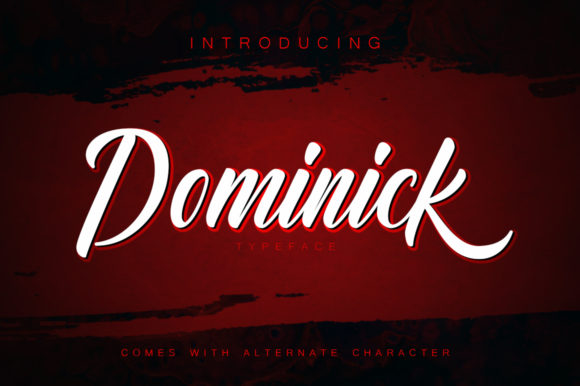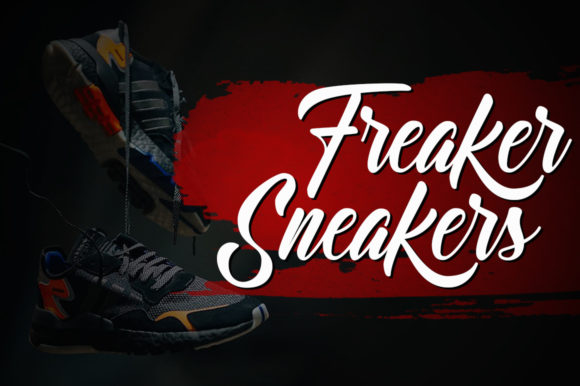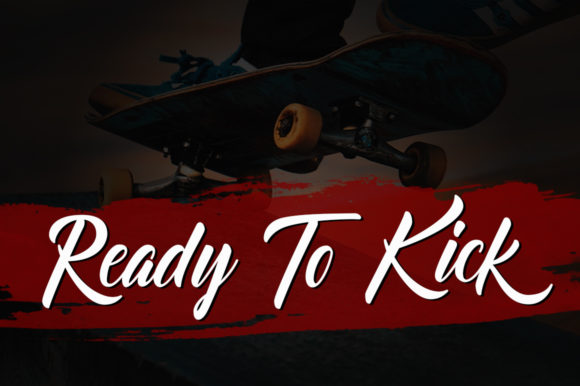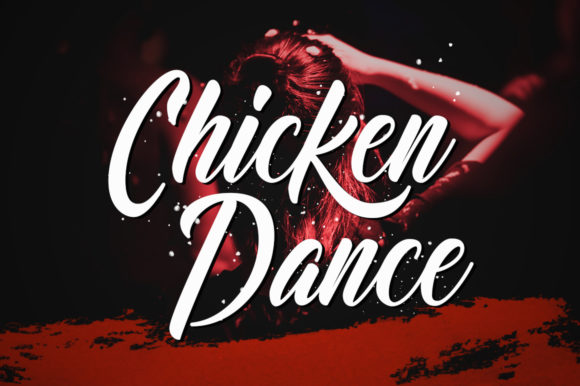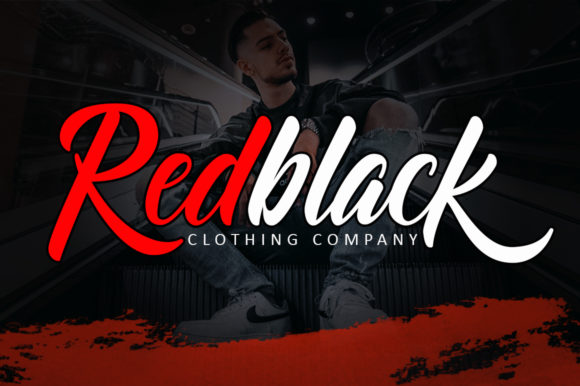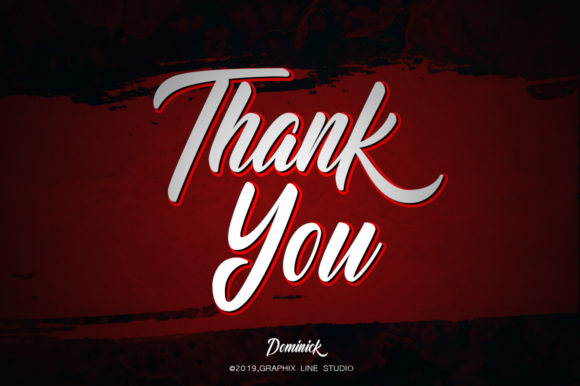
HomeScript FontsDominick Font Script Fonts Dominick Font FacebookXPinterestWhatsApp Dominick Font Poster 2 Dominick Font Poster 3 Dominick Font Poster 4 Dominick Font Poster 5 Dominick Font Poster 6 About Dominick Font Dominick is a bold and modern handwritten font that will allow you to create beautiful designs in an instant! DOWNLOAD ON CREATIVE FABRICAThis font is sold and delivered by Creative Fabrica. Font Canyon may earn a commission if you buy through this link. People also explored Hexanova Font Dictionary in Library Font Banitta Font Trio & Extras Getterny Mamthi Font Heather Small Caps Mugets Font Mangorush Font 1925 My Toy Print Deluxe Pro Set Font Hello Lovely 334 0 TagsDominick Font Previous articleCoco Banana FontNext articleWilliam Font LEAVE A REPLY Cancel reply Comment: Please enter your comment! Name:* Please enter your name here Email:* You have entered an incorrect email address! Please enter your email address here Website: Save my name, email, and website in this browser for the next time I comment. Personal Use Free Miss Love Personal Use Free Read more about this font Equestrain Personal Use Free Read more about this font True Love Personal Use Free Read more about this font Helsinki Personal Use Free Read more about this font BLOG To increase your work productivity, choose the most readable fonts. In today's fast-paced work environment, where digital communication and information consumption are integral to our daily routines, the choice of fonts can significantly impact... Best Fonts for T-Shirt Design – Top 2025 Picks 5 Fonts That Will Dominate Design Trends in 2026 The 10 Best Handwriting Fonts to Add Personality to Your Designs